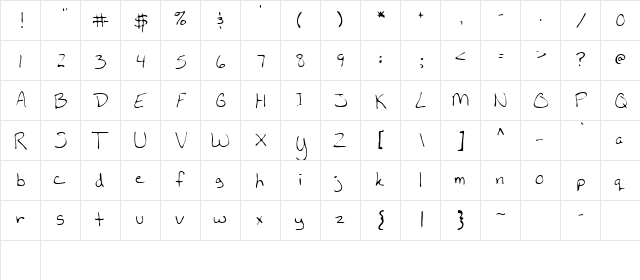
Lauren Regular
Design Context for Lauren Typeface
Lauren is a composed and adaptable typeface that performs quietly and consistently across a wide range of design contexts.